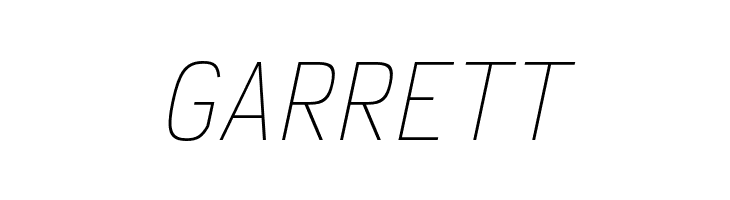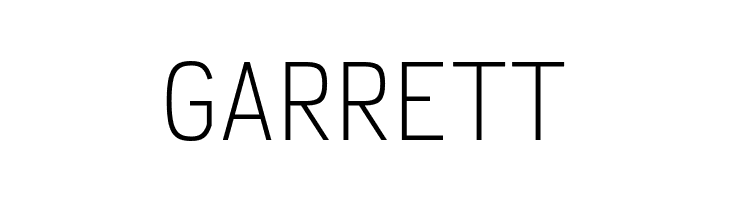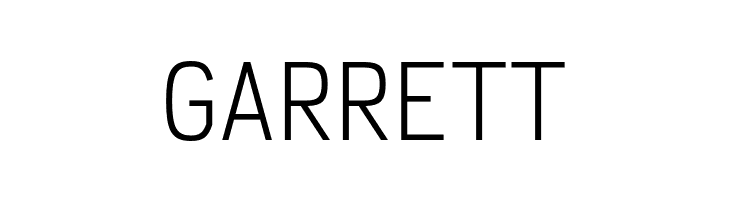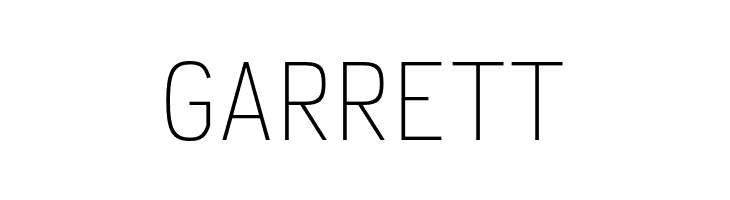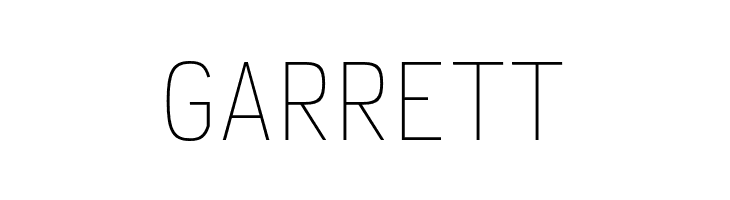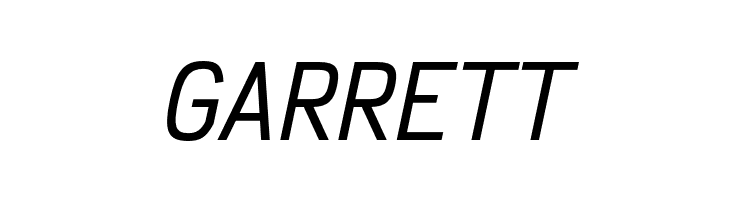
A thin, italicized monospaced font with elegant, consistent strokes.
A modern, monospaced font with clean lines and low contrast, perfect for coding.
A modern, monospaced font with a clean and geometric design, perfect for coding.
A light, oblique, monospaced font with a modern, clean design.
A modern, monospaced typeface with an extra-light weight and geometric design.
A modern, thin monospaced font with clean lines and consistent spacing.
A modern, monospaced font with semi-bold weight and oblique style, ideal for coding.
A modern, oblique, monospaced font with an extra light weight and low contrast.
A monospaced, oblique font with consistent stroke weight and clear readability.
A bold, monospaced font with uniform stroke width and rounded edges, ideal for technical use.